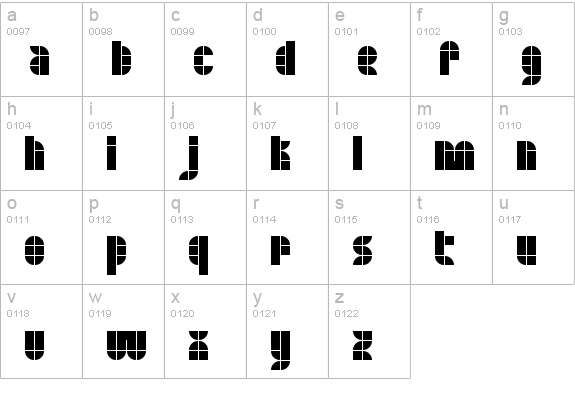
Quasoid Regular Font Details
Quasoid Regular is the standard, neutral variant in the Quasoid typeface family \xE2\x80\x94 well suited to general body text, paragraphs, and standard typographic work.
Quasoid Regular font is a stunning typeface that effortlessly combines elegance and modernity. With its clean lines and refined curves, this font is perfect for a wide range of design projects, from branding and logos to web design and print materials. The Quasoid Regular font exudes a sense of sophistication and professionalism, making it ideal for any project that requires a touch of class. Its versatility allows it to be used in various contexts, whether it's for a corporate presentation or a personal blog. One of the best things about Quasoid Regular font is that it is completely free to download. That's right, this exceptional font can be yours without having to spend a dime. You can easily access this font at FontsMarket.com, where you'll find a vast collection of high-quality fonts for all your creative needs. Whether you're a professional designer or an enthusiastic hobbyist, Quasoid Regular font is a must-have addition to your font library. Its timeless appeal and effortless charm will elevate any design project to new heights. So why wait? Head over to FontsMarket.com and download Quasoid Regular font today, and let your creativity soar.